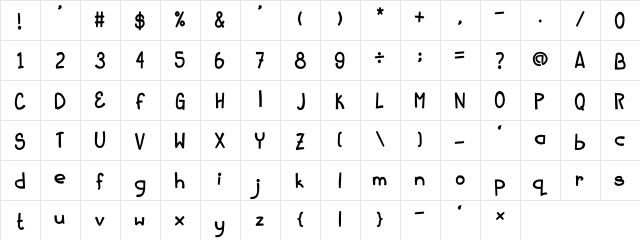
Beloved Girl Regular
Design Context for Beloved Girl Typeface
Beloved Girl is a composed and adaptable typeface that performs quietly and consistently across a wide range of design contexts.
Pro Tip: Use Beloved Girl in both headline and body roles to test its range before committing to a single application.